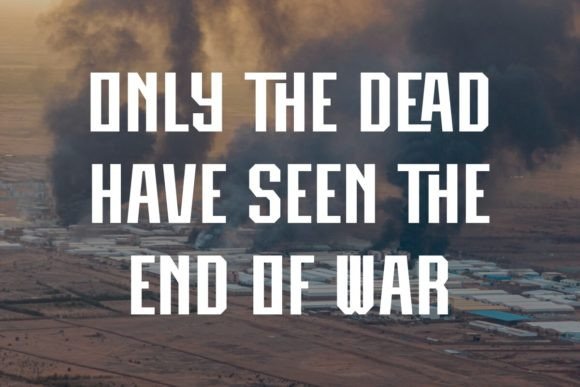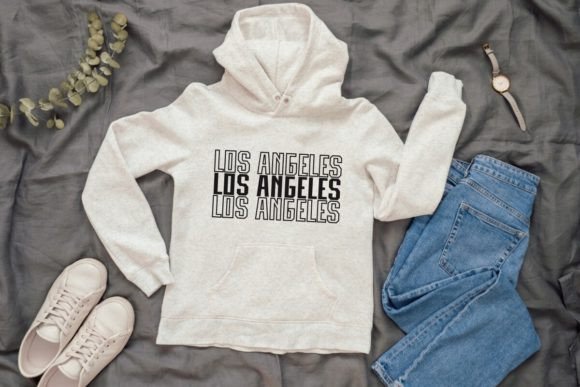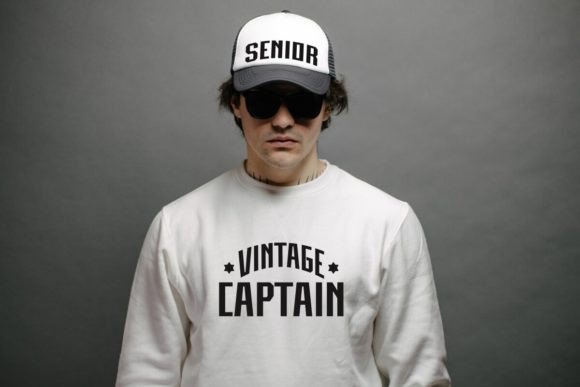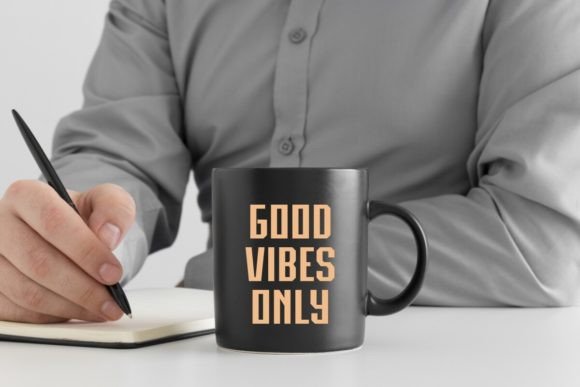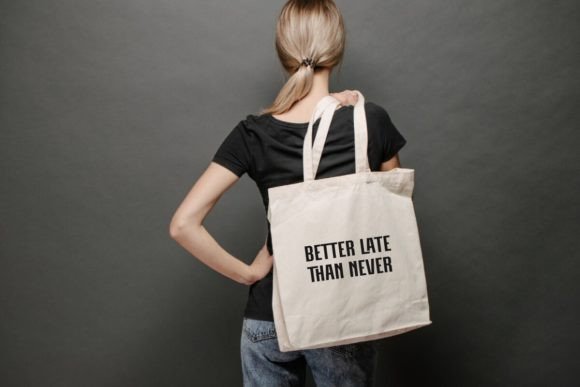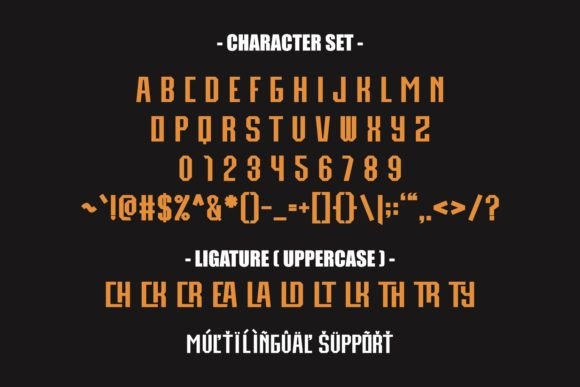
Great Trump Font – Free Download
Introduction to Great Trump Font
Great Trump is a bold rigid and classic vintage sans serif font inspired by modern trends and the iconic Trump style.
Perfect for creating impactful quotes, backgrounds, posters, headlines and its versatility shines in apparel mockups like t-shirts, hoodies, mugs, tote bags, pillows, and tumblers This font is also ideal for wall art, labels, and price tags.
Key Features of Great Trump Font
Why Choose Great Trump Font?
Great Trump Font offers exceptional quality and versatility, making it a valuable addition to your design toolkit. Whether you’re creating for personal projects or commercial use, Great Trump Font delivers professional results.